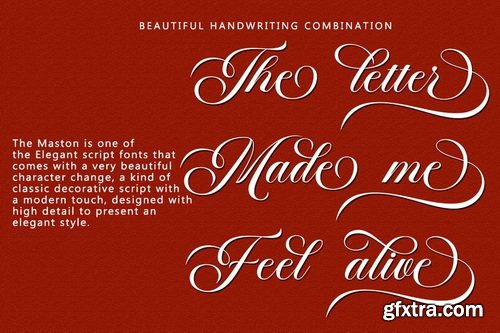
Maston Script Font is an elegant script font featuring beautiful character variations. It combines classic copper style with a modern touch, designed with great attention to detail for an elegant look. This font is visually appealing, clean, feminine and easy to read, thanks to its luxurious letter connections. Its classic style is perfect for a variety of formal uses, including invitations, labels, restaurant menus, logos, fashion, makeup, stationery, novels, magazines, books, greeting and wedding cards, packaging and all types of advertising.